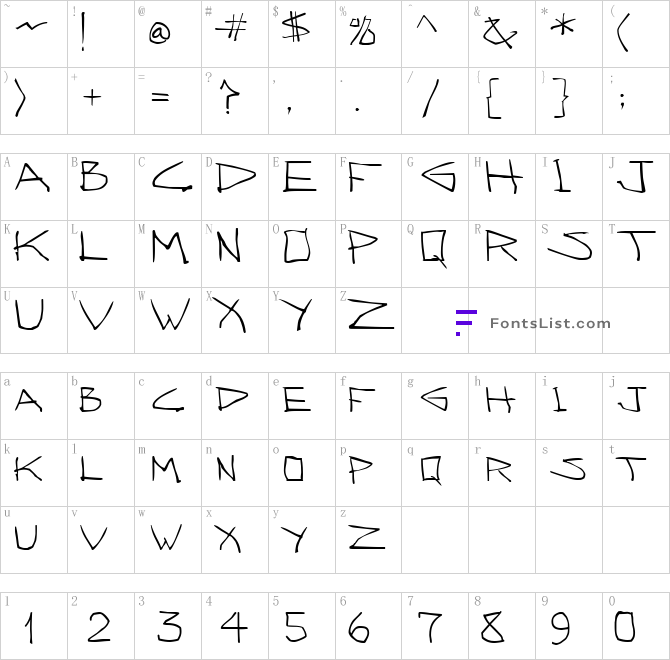
- Font Name:AlphaMouse
AlphaMouse.ttf is a very beautiful artistic font, AlphaMouse.ttf is widely used in the design and printing of various books and pictures,AlphaMouse.ttf has a strong visual impact,AlphaMouse.ttf is a commonly used font in newspapers, magazines and books, and is used in posters, e-commerce Poster design, store design, logo design, font design and other fields.AlphaMouse.